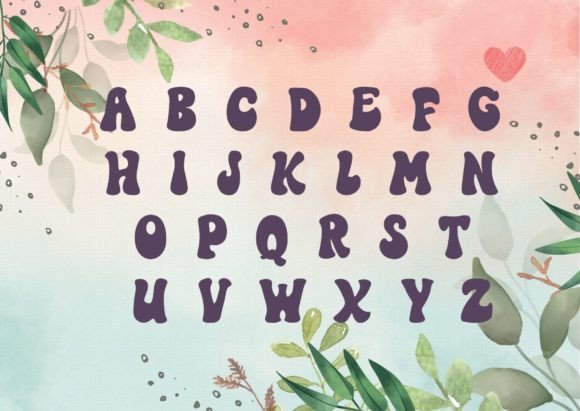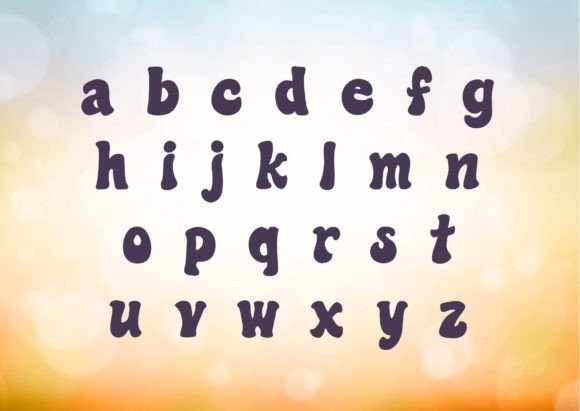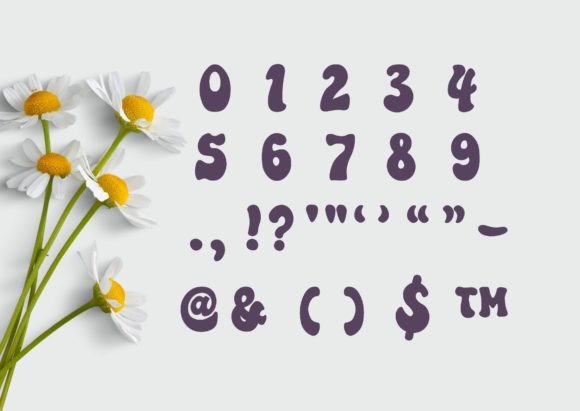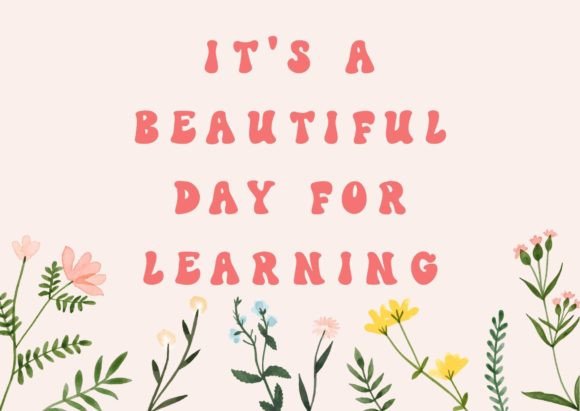
Introducing Happy New Day Font: The Perfect Addition to Your Design Arsenal
Are you tired of using the same old fonts in your designs? Look no further! Happy New Day Font is a fresh and exciting addition to the world of typography. This cute display font is designed to bring a touch of friendliness and beauty to your creations, making it perfect for designers and crafters alike.
What Makes Happy New Day Font So Special?
Happy New Day Font is a unique and bold display font that is sure to make your designs stand out. Its friendly and approachable style makes it perfect for a wide range of projects, from t-shirt designs and banners to posters and more. Whether you’re looking to add a personal touch to your designs or create something that’s sure to grab attention, Happy New Day Font is the perfect choice.
Key Features of Happy New Day Font
- Cute and Friendly Design: Happy New Day Font is designed to be adorable and approachable, making it perfect for designs that need a touch of personality.
- Bold and Unique Typography: This font is designed to make a statement, with bold and unique lettering that’s sure to grab attention.
- Versatile: Happy New Day Font can be used on a wide range of projects, from t-shirt designs and banners to posters and more.
- Easily Readable: Despite its bold and playful design, Happy New Day Font is easy to read, making it perfect for designs that need to communicate a message.
Happy New Day Font is a must-have for designers and crafters who want to add a touch of personality to their creations. Whether you’re a professional designer or a hobbyist crafter, this font is sure to inspire your next project. With its unique and bold design, Happy New Day Font is perfect for:
- T-Shirt Designs: Add a touch of personality to your t-shirt designs with Happy New Day Font.
- Banners and Posters: Create eye-catching banners and posters with this bold and unique font.
- Stationery and Invitations: Add a personal touch to your stationery and invitations with Happy New Day Font.
- Digital Designs: Use Happy New Day Font in your digital designs, such as social media graphics and blog posts.
Tips for Using Happy New Day Font
Here are a few tips for getting the most out of Happy New Day Font:
- Use it as a Headline Font: Happy New Day Font is perfect for use as a headline font, where its bold and playful design can really make an impact.
- Pair it with Other Fonts: Experiment with pairing Happy New Day Font with other fonts to create a unique and interesting design.
- Use it in Color: Happy New Day Font looks great in color, so don’t be afraid to experiment with different colors and combinations.
In conclusion, Happy New Day Font is a unique and exciting addition to the world of typography. Its cute and friendly design, bold and unique typography, and versatility make it perfect for designers and crafters alike. Whether you’re looking to add a personal touch to your designs or create something that’s sure to grab attention, Happy New Day Font is the perfect choice. So why not give it a try and see the difference it can make in your designs?